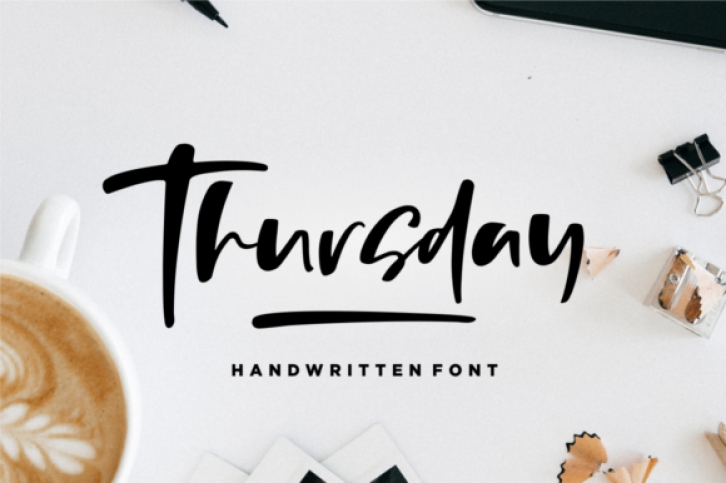
The Thursday us a fresh and modern hand-lettering font. It has a natural handwritten look and is perfect for adding a striking touch to your designs.